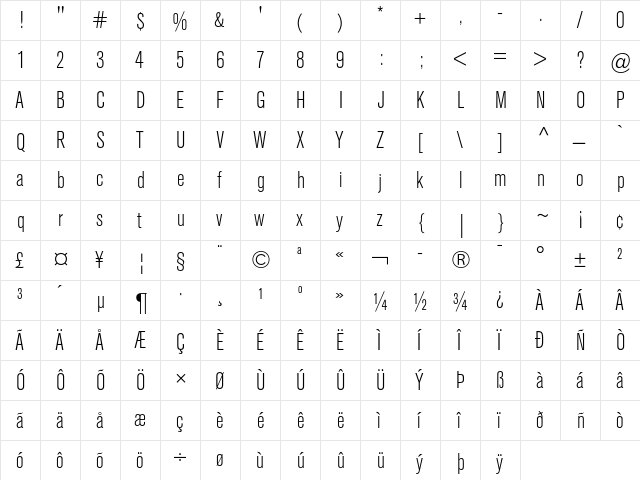
Berthold Akzidenz Grotesk Light Condensed Font Preview
Design Context for Berthold Akzidenz Grotesk Typeface
Berthold Akzidenz Grotesk takes a clean, functional approach — its unadorned letterforms prioritise legibility and work reliably across screen and print environments. The delicate stroke weight brings airiness and refinement to layouts. The condensed width makes it efficient for tight spaces without sacrificing legibility.
A natural fit for high-end product packaging, luxury brand identities, and refined web typography.
Font Pairing: Pair Berthold Akzidenz Grotesk with a medium or bold serif for headlines — the weight contrast creates an elegant, high-end feel.
Pro Tip: Use Berthold Akzidenz Grotesk tightly set in headlines and banners — its condensed proportions make it ideal for maximum impact in minimum horizontal space.